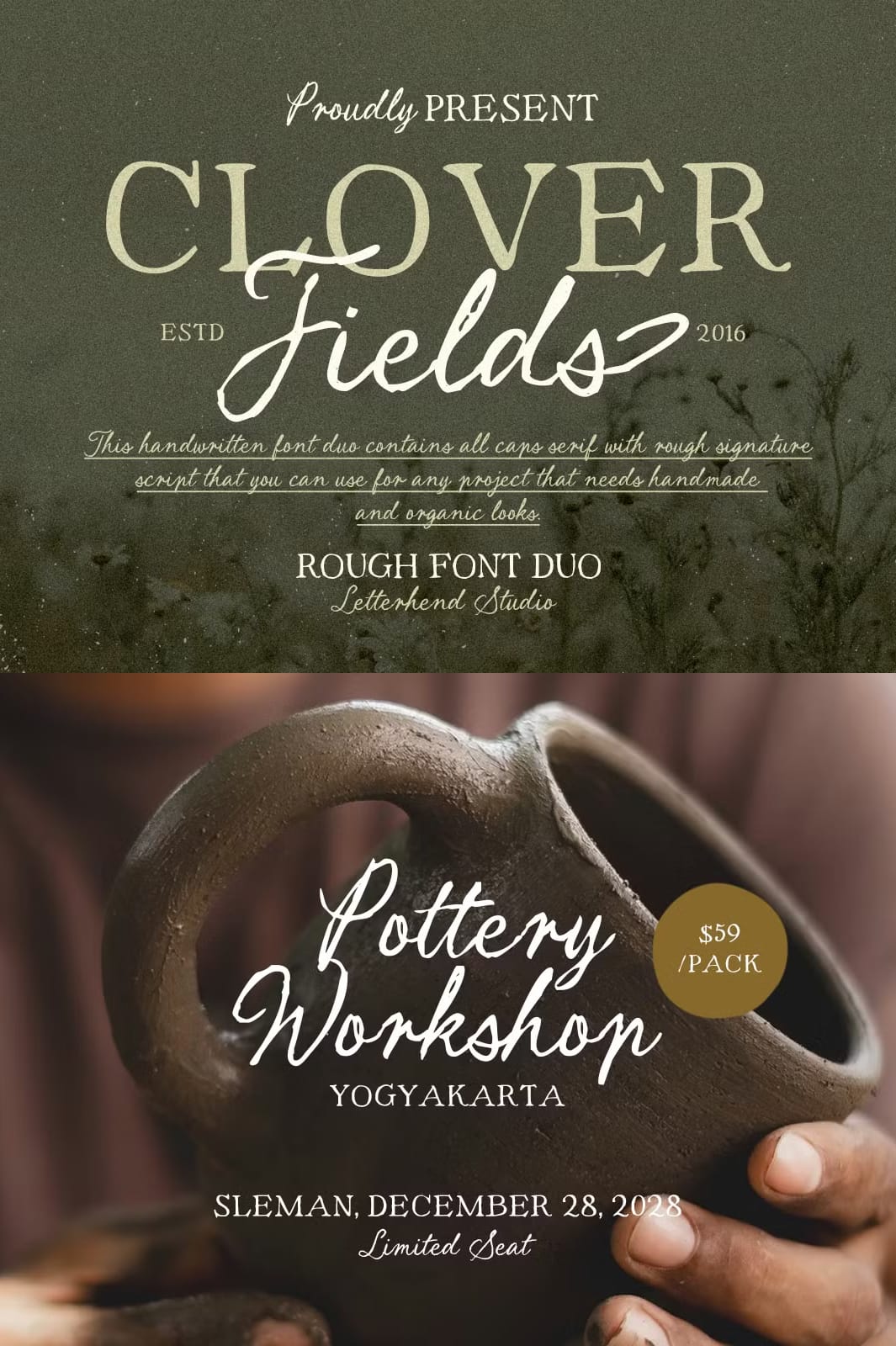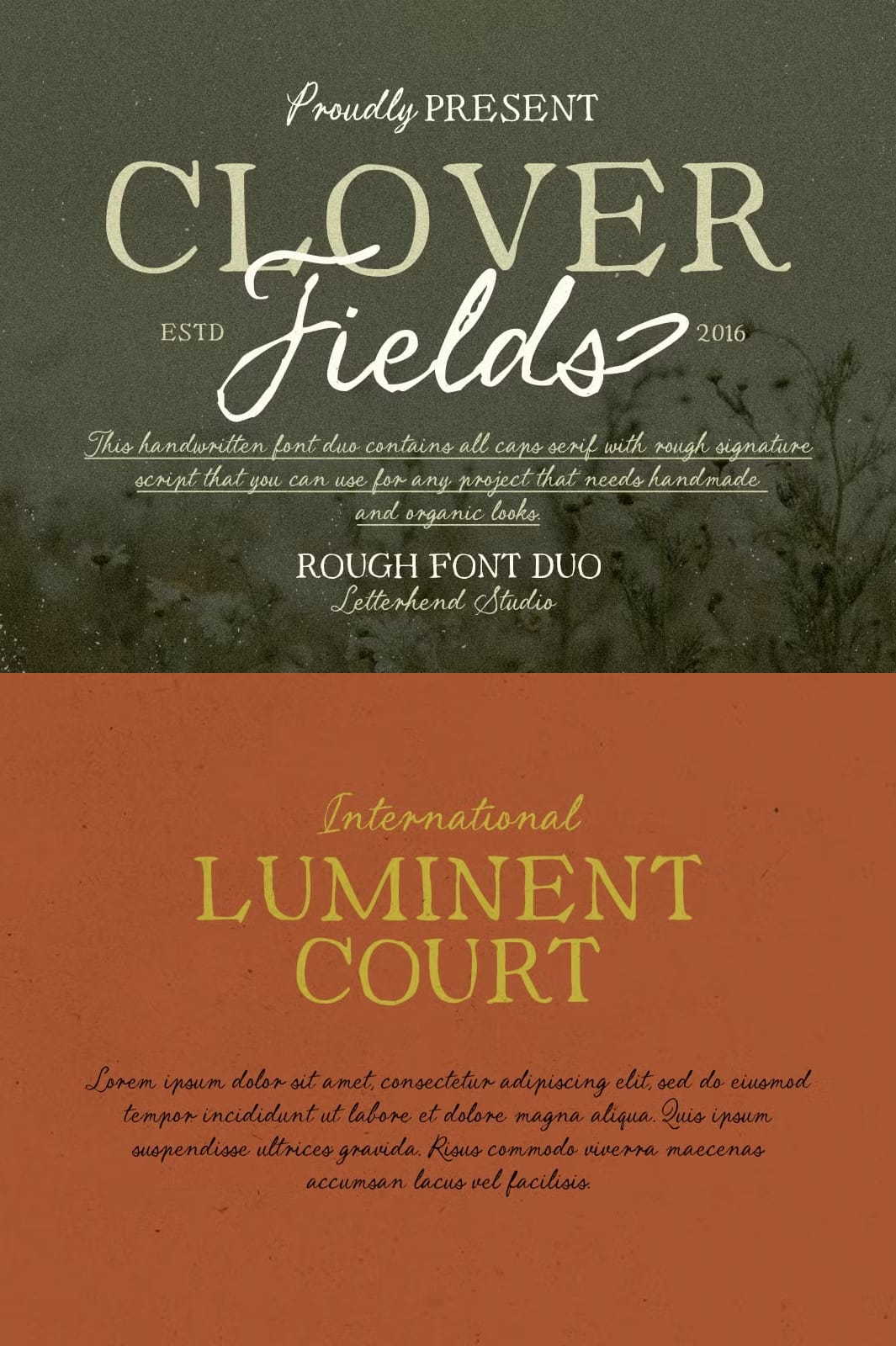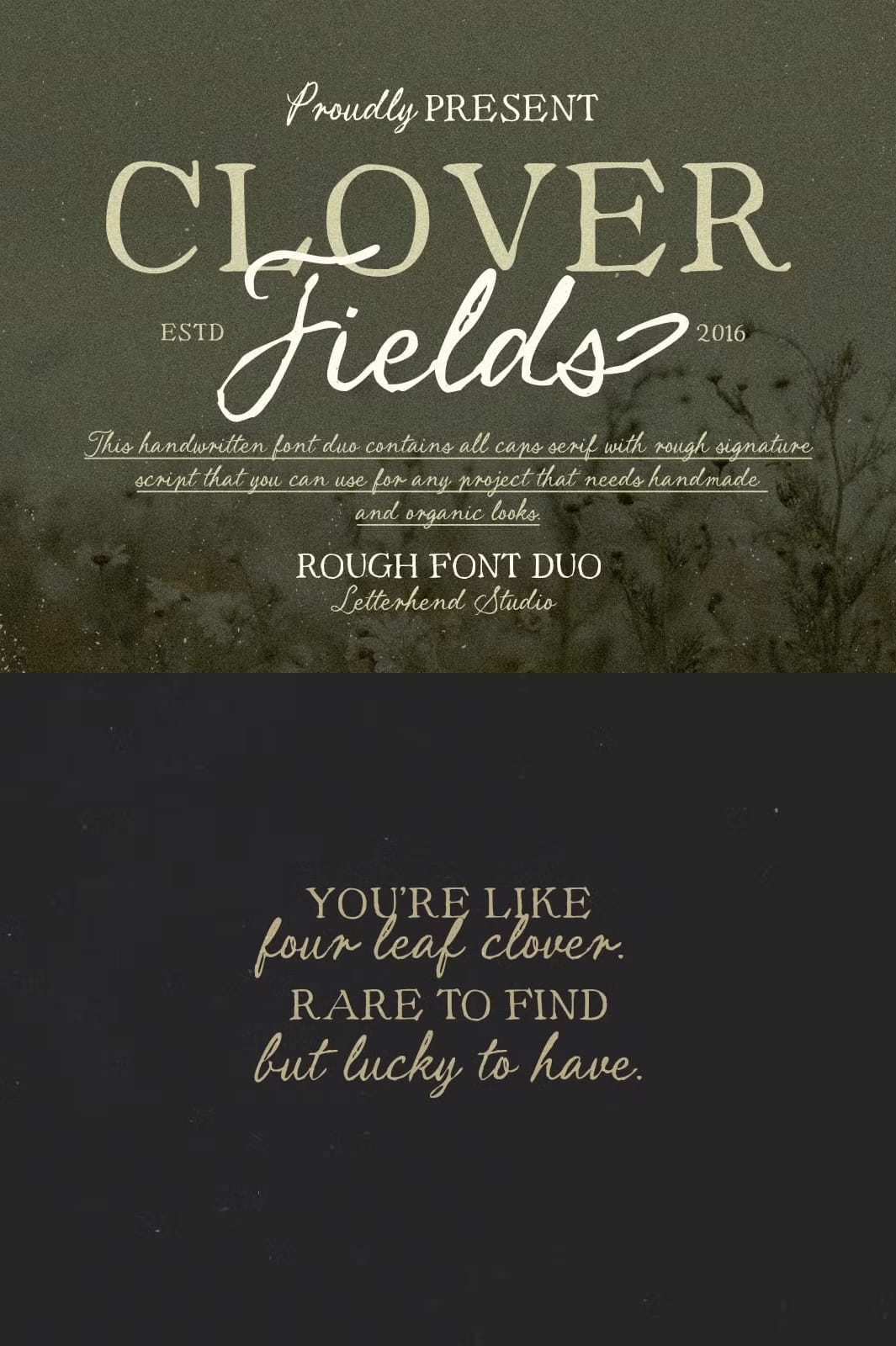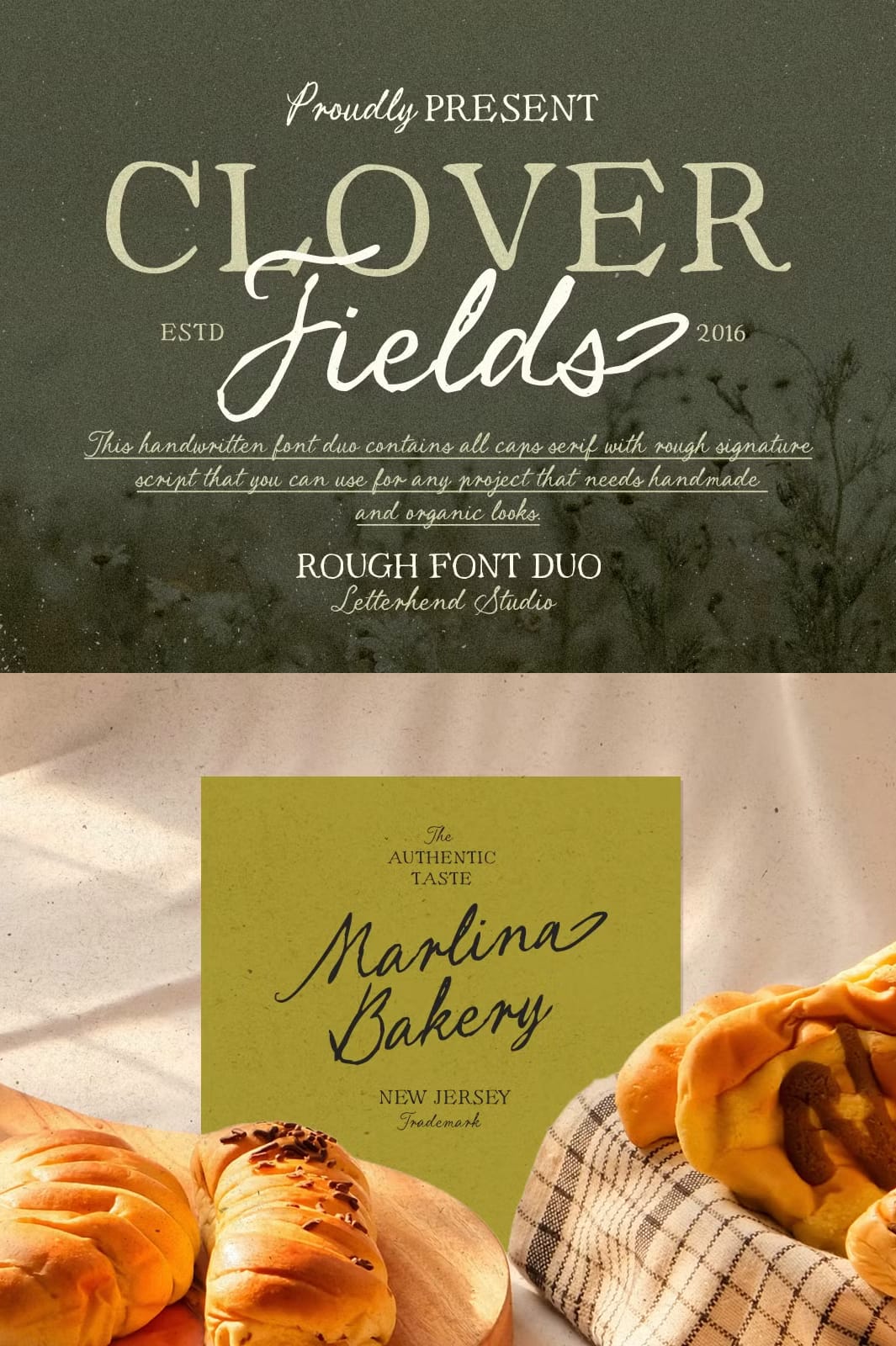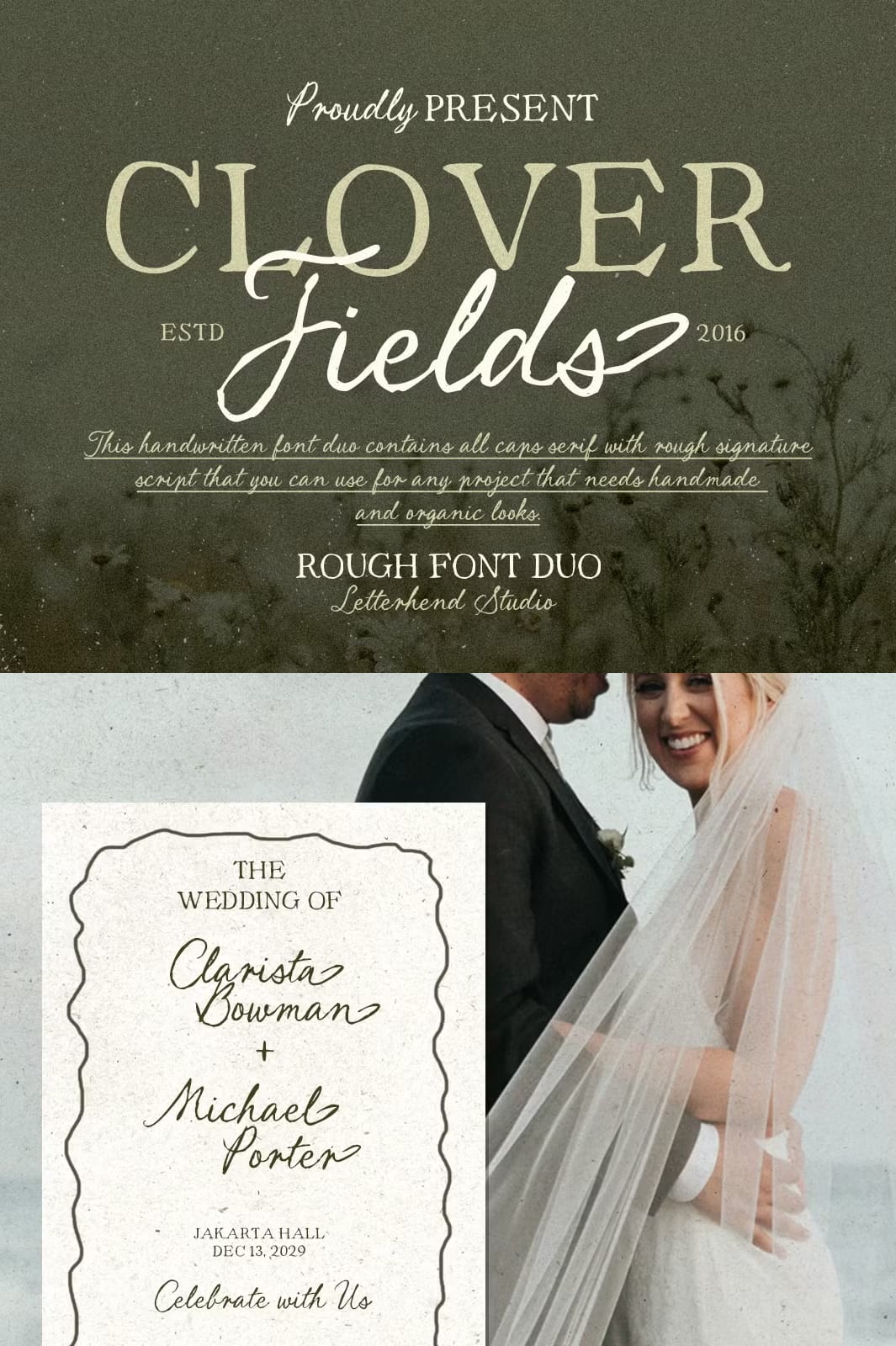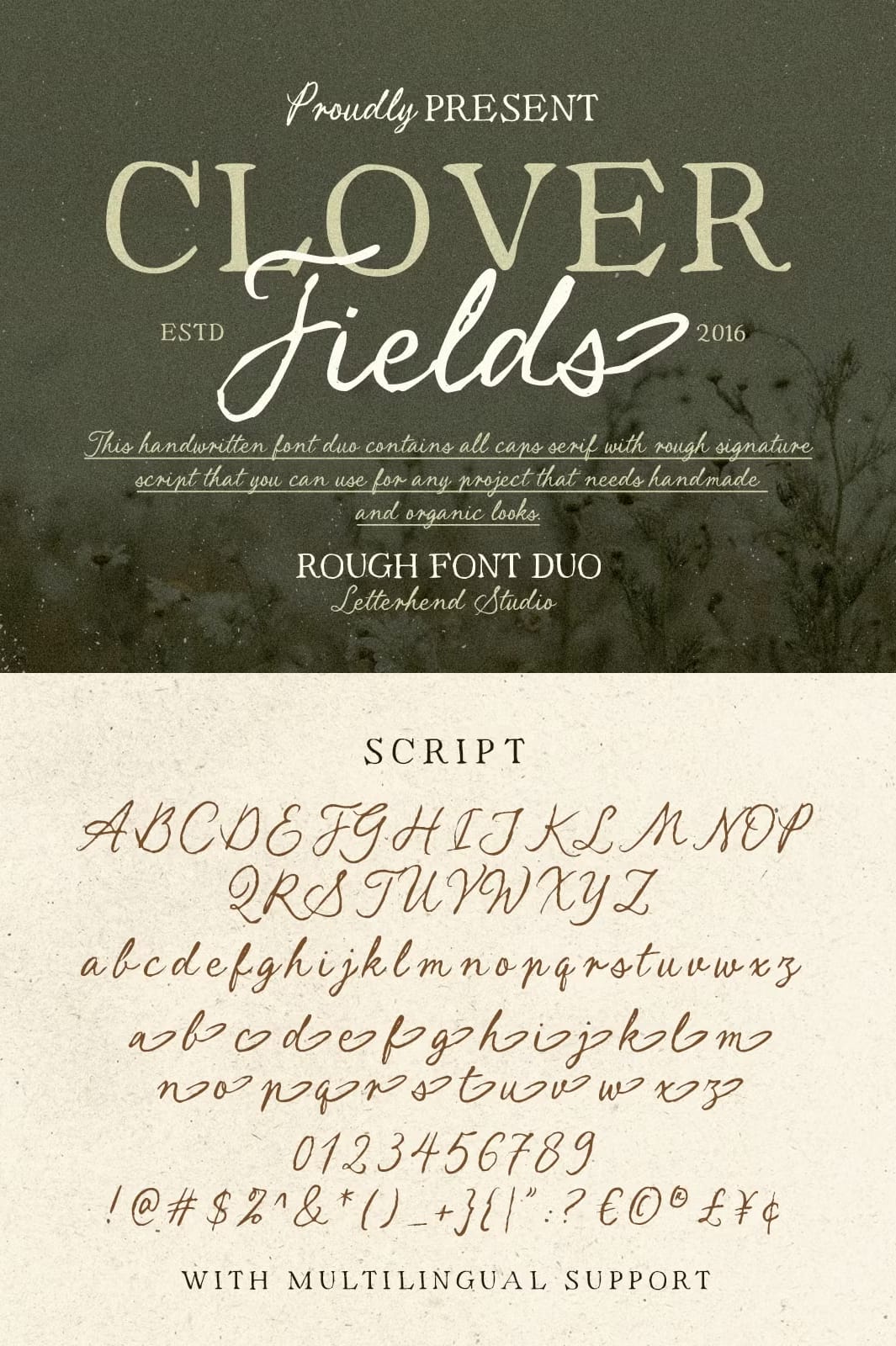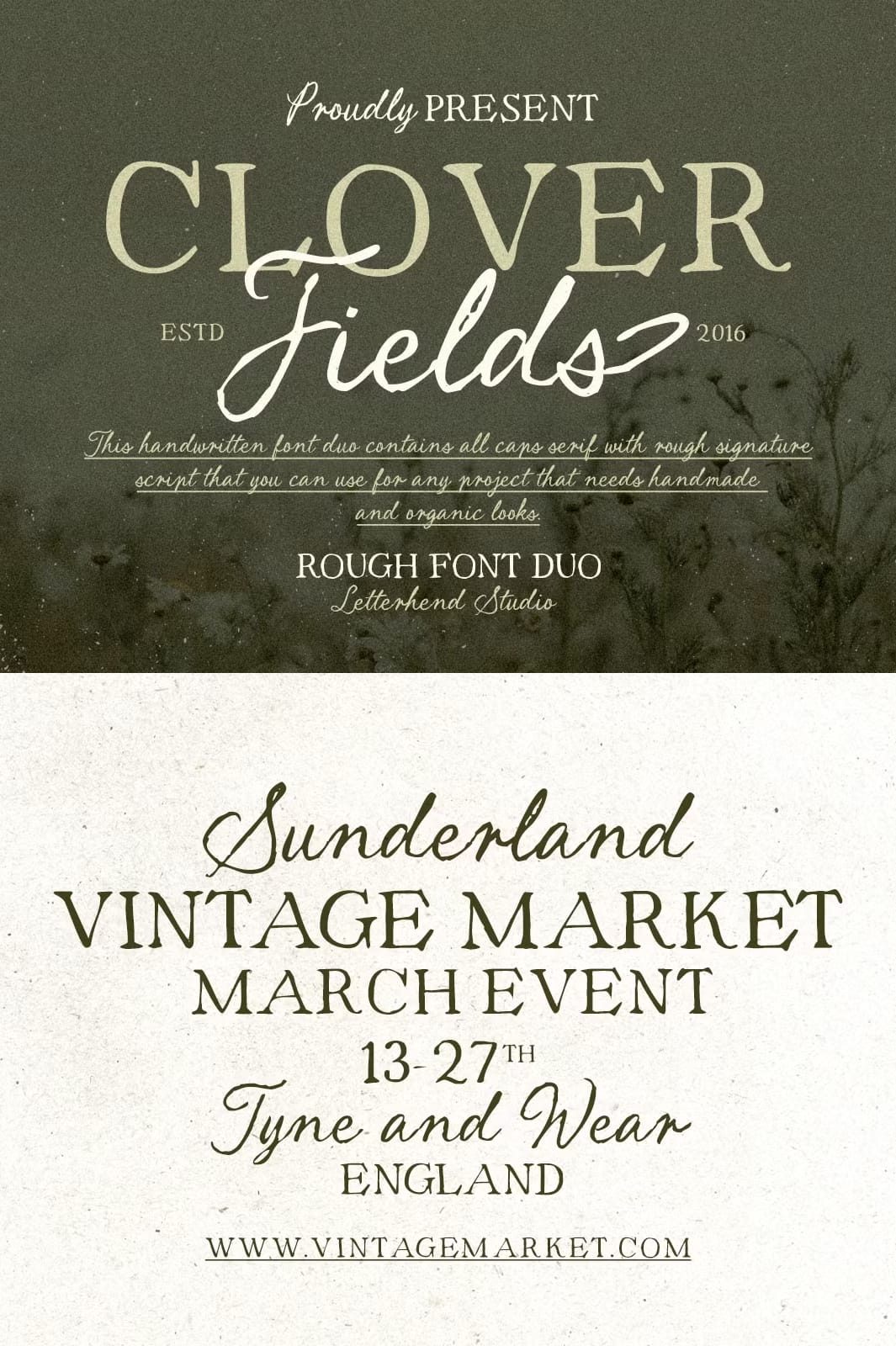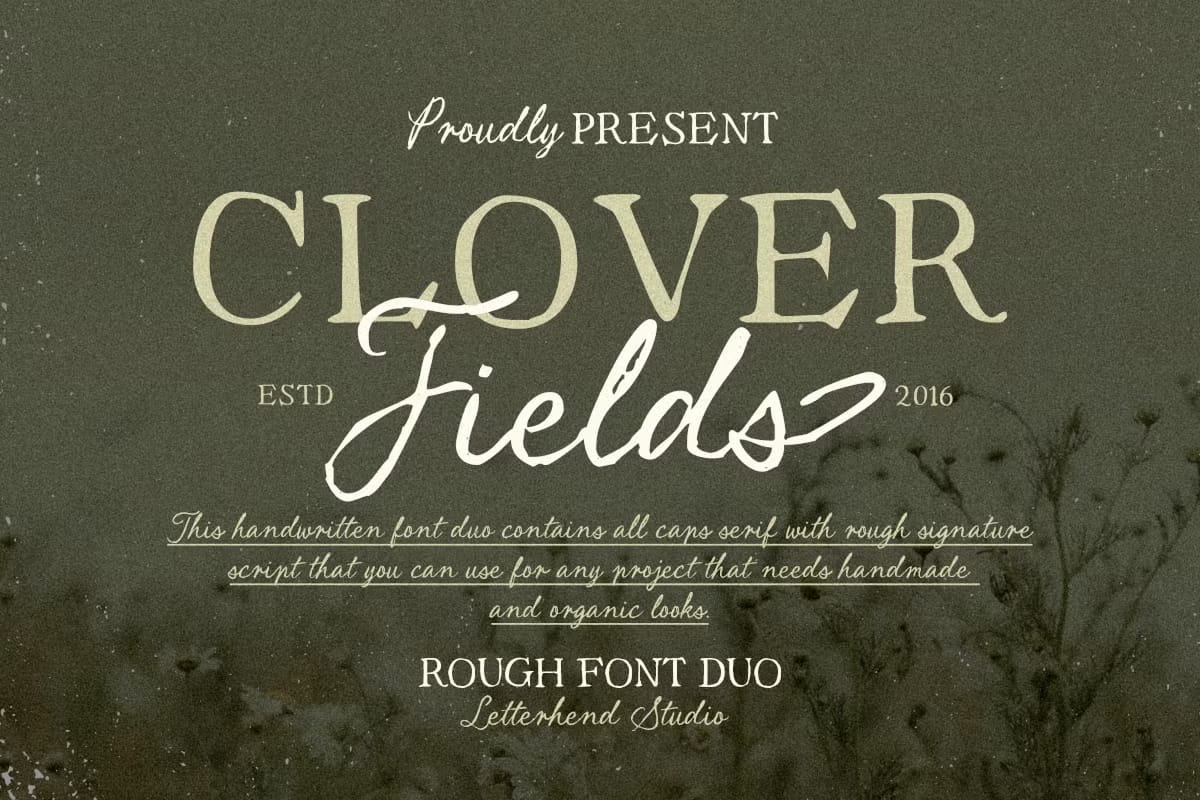
Clover Fields blends an organic serif with a rough handwritten script, creating a soft rustic look that feels calm, natural, and beautifully imperfect. The textured strokes and organic details give this font duo a warm handmade charm, like notes written in an old countryside journal.
Features :
- Uppercase & lowercase
- Numbers and punctuation
- Alternates & Ligatures
- Multilingual Support